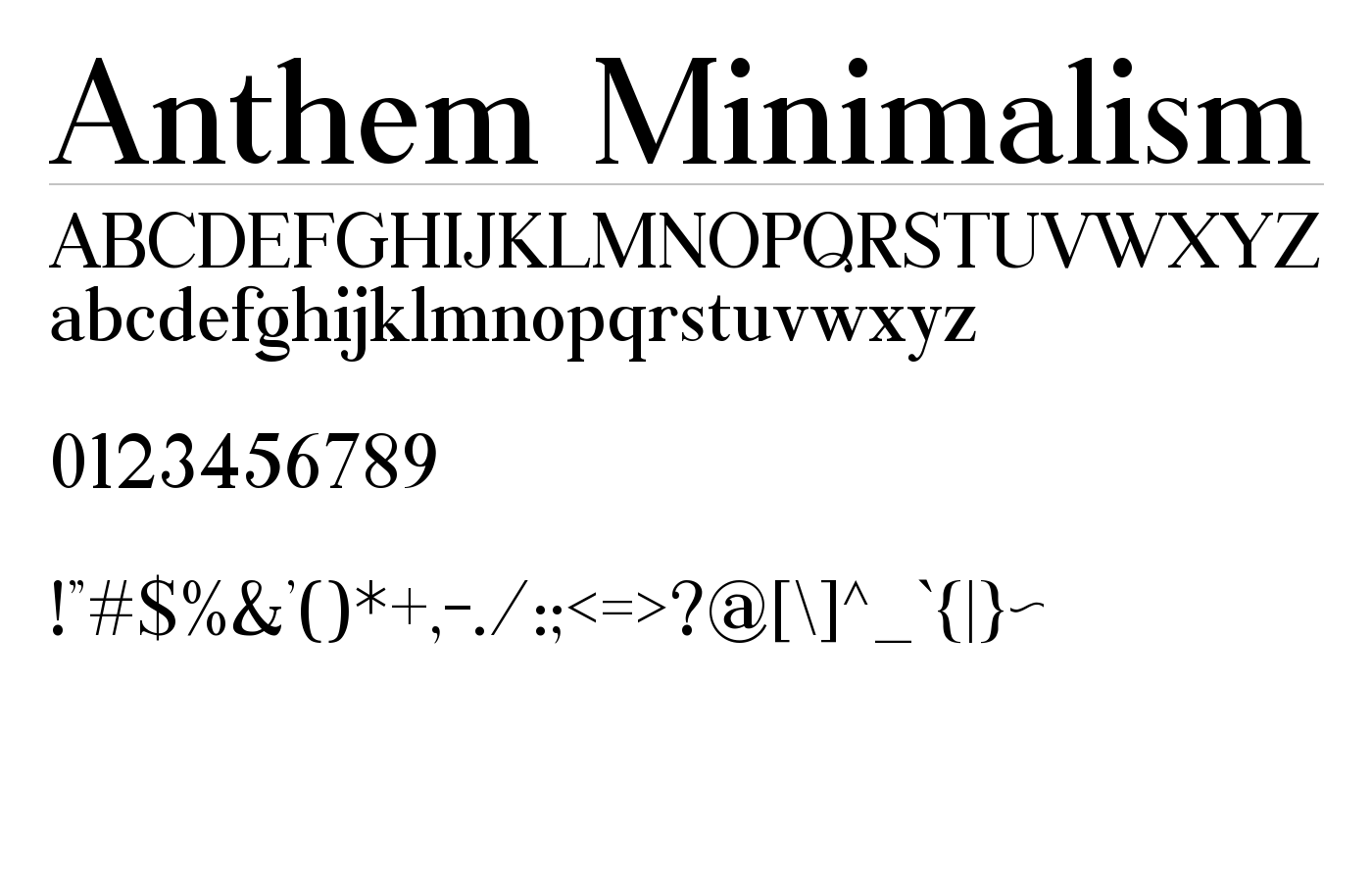
Anthem Minimalism is a refined serif font that balances classic elegance with modern simplicity. Its moderate contrast and sharp, thin serifs give it a sophisticated yet approachable feel, making it ideal for editorial design, luxury branding, and stylish headlines where clarity and grace are essential. This font’s clean letterforms and subtle details convey professionalism and timelessness, perfect for brands seeking a minimalist but distinguished look.
Anthem Minimalism Font
About Anthem Minimalism Font
| Font family | Anthem Minimalism Font |
| Designer | Ahmad faizin |